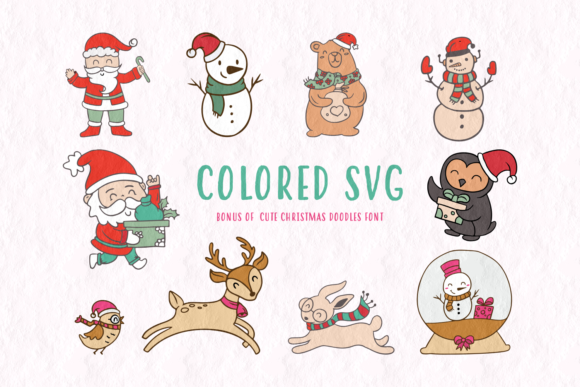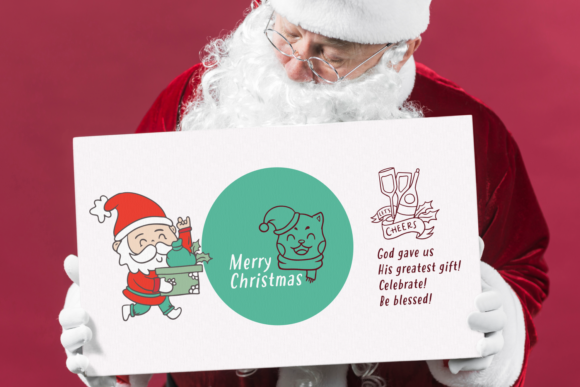
Introduction to Cute Christmas Doodles Font Font
Fonts play a crucial role in design, and the Cute Christmas Doodles Font font is a typeface that brings both character and versatility to any project. Whether you’re working on a branding project, a website, or a print design, the Cute Christmas Doodles Font font offers a unique style that can elevate your work.
Cute Christmas Doodles brings together a stunning set of Christmas-themed dingbats, making it the perfect font for winter crafts.
Cute Christmas Doodles brings together a stunning set of Christmas-themed dingbats, making it the perfect font for winter crafts!
Key Features of Cute Christmas Doodles Font Font
Why Choose Cute Christmas Doodles Font Font?
The Cute Christmas Doodles Font font is more than just a typeface – it’s a design tool that helps you communicate your message with style and clarity. Its unique character set and versatile design make it suitable for a wide range of applications, from elegant invitations to bold headlines.
With its carefully crafted letterforms and balanced proportions, the Cute Christmas Doodles Font font ensures readability and visual appeal across all mediums.
What makes Cute Christmas Doodles Font font special?
The Cute Christmas Doodles Font font stands out with its unique design, exceptional readability, and versatility across various design applications.